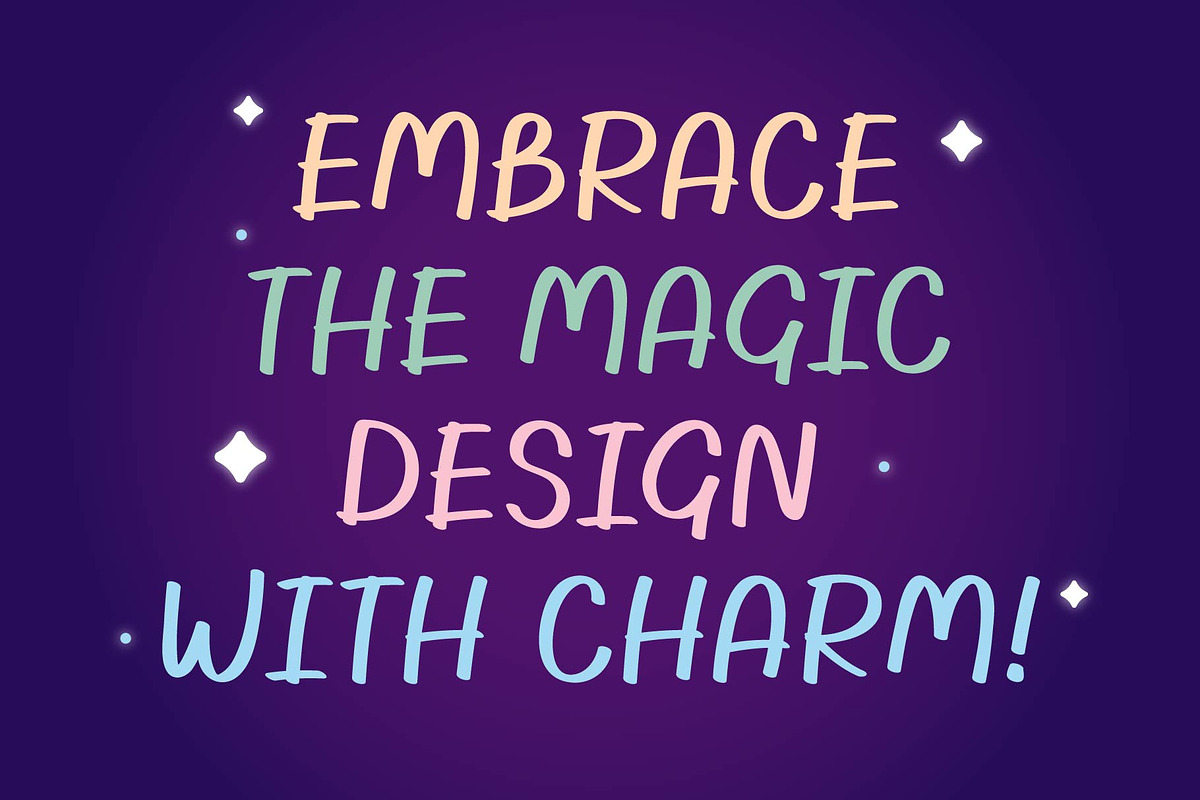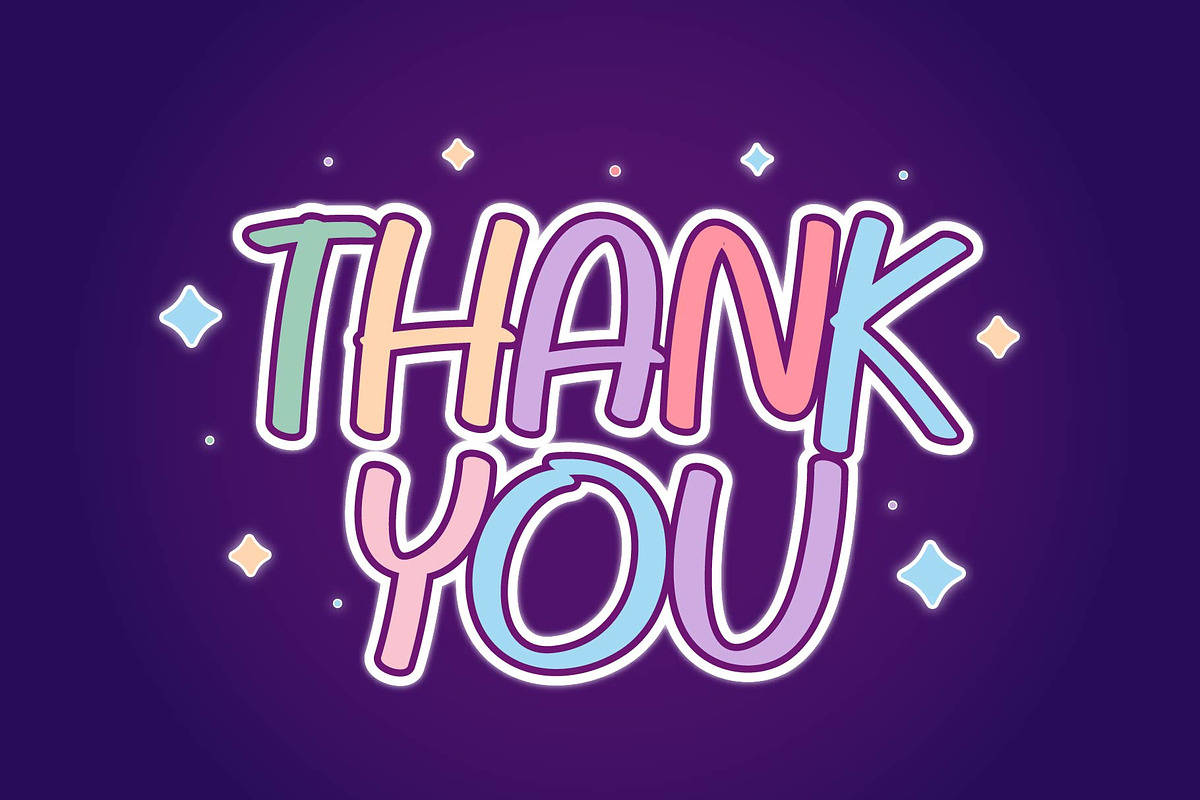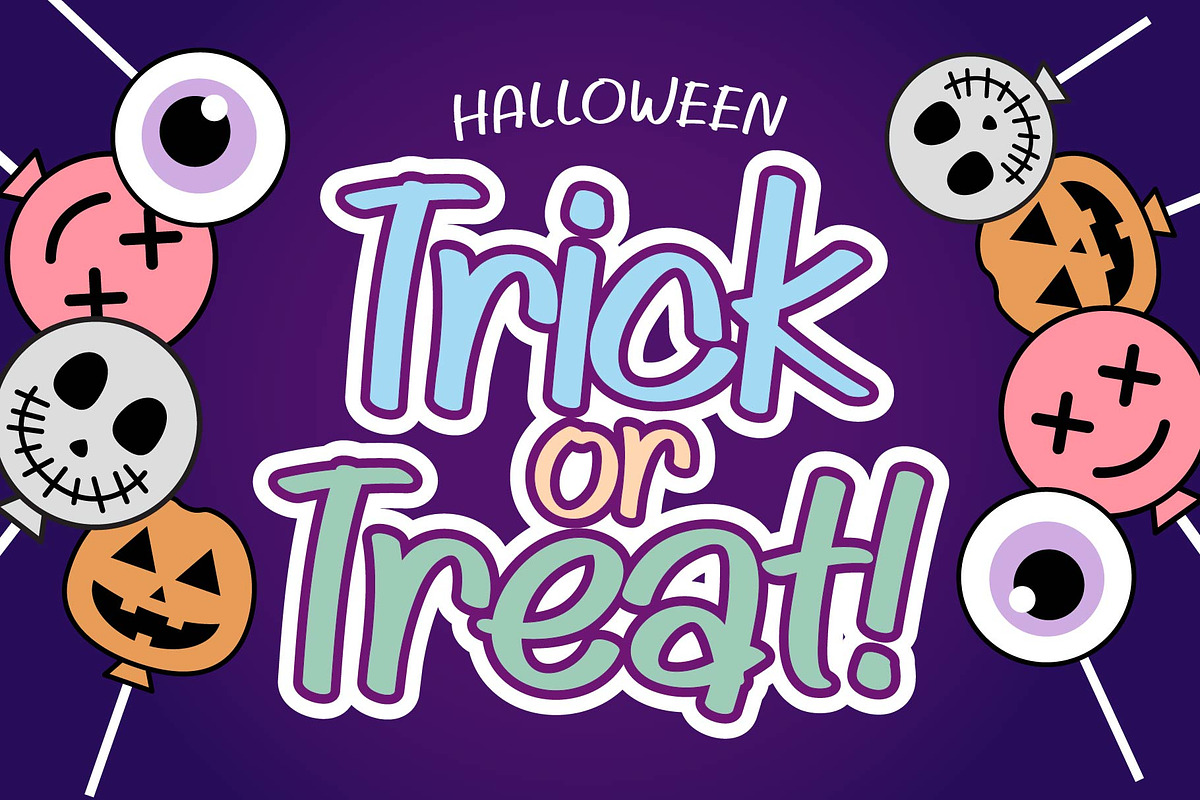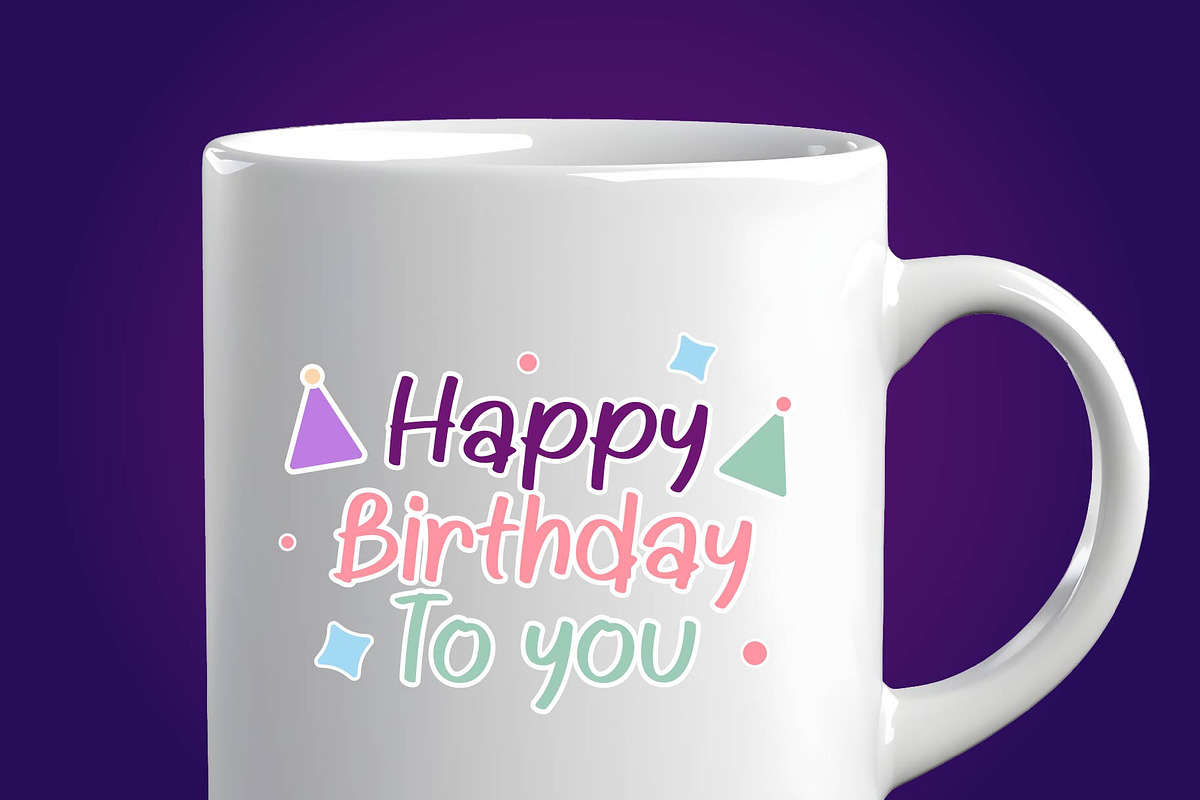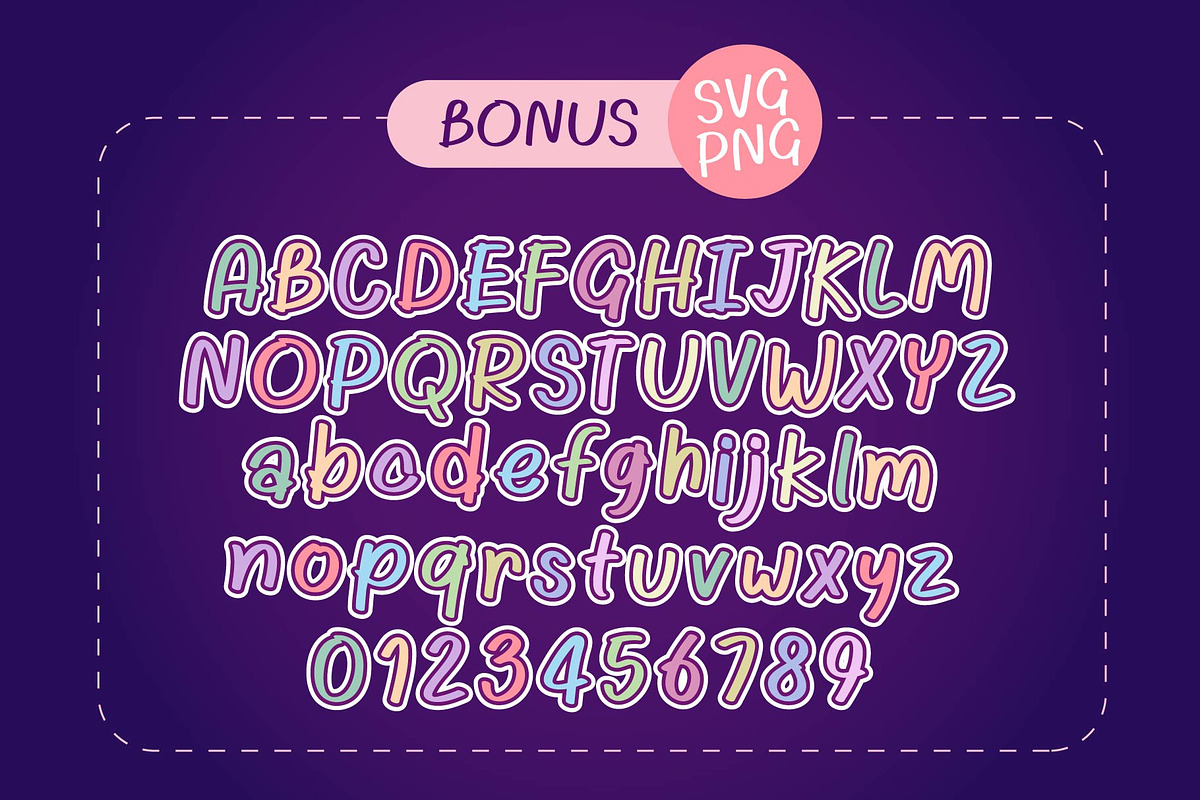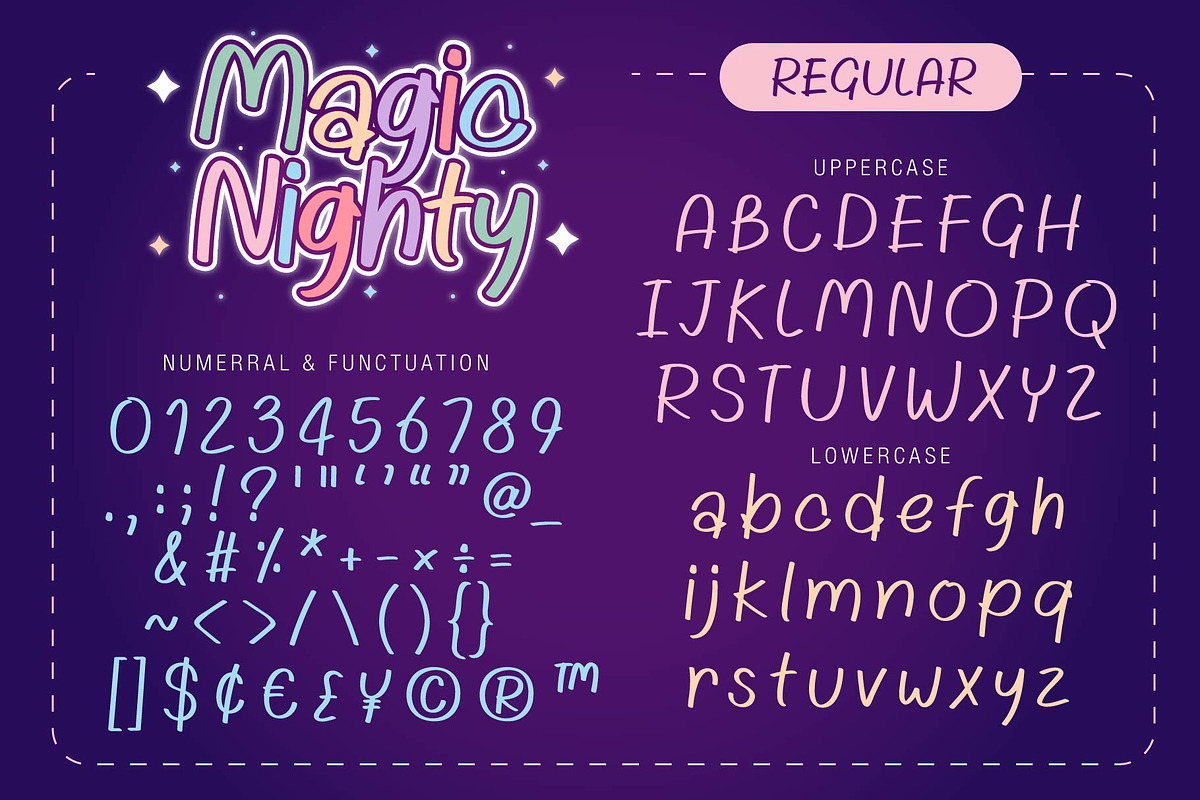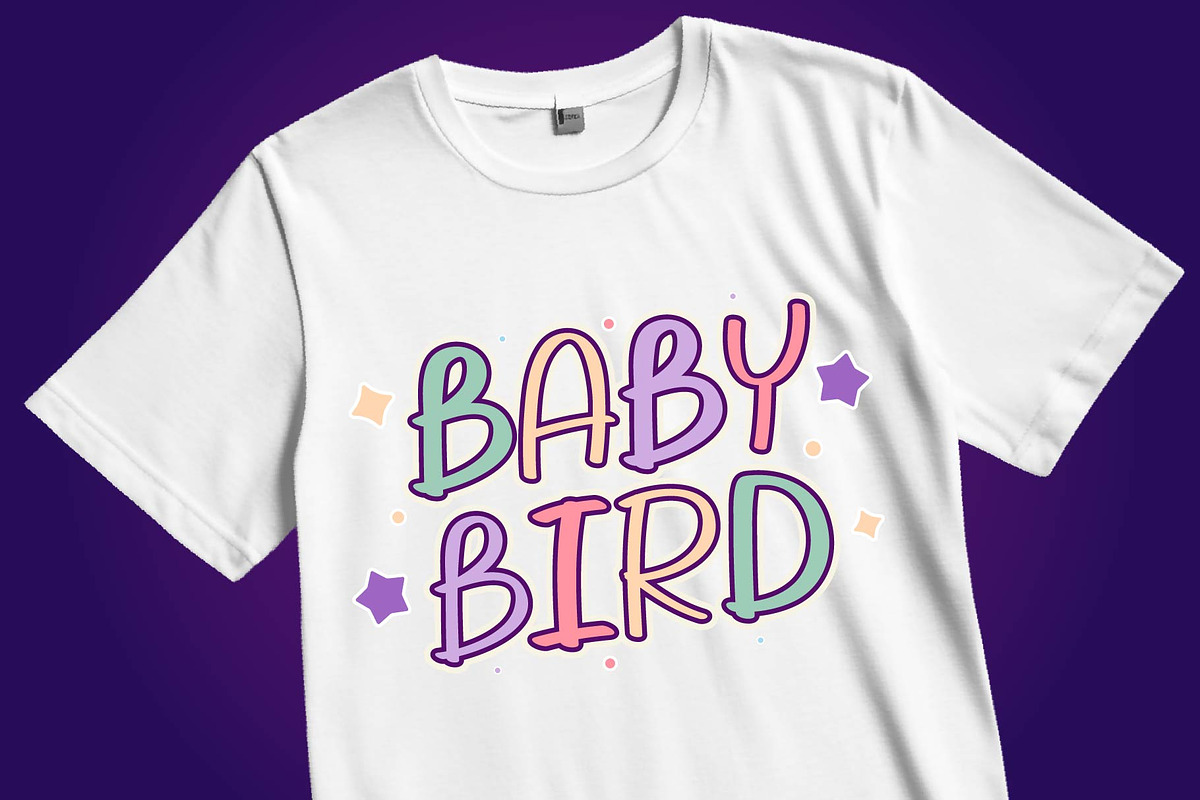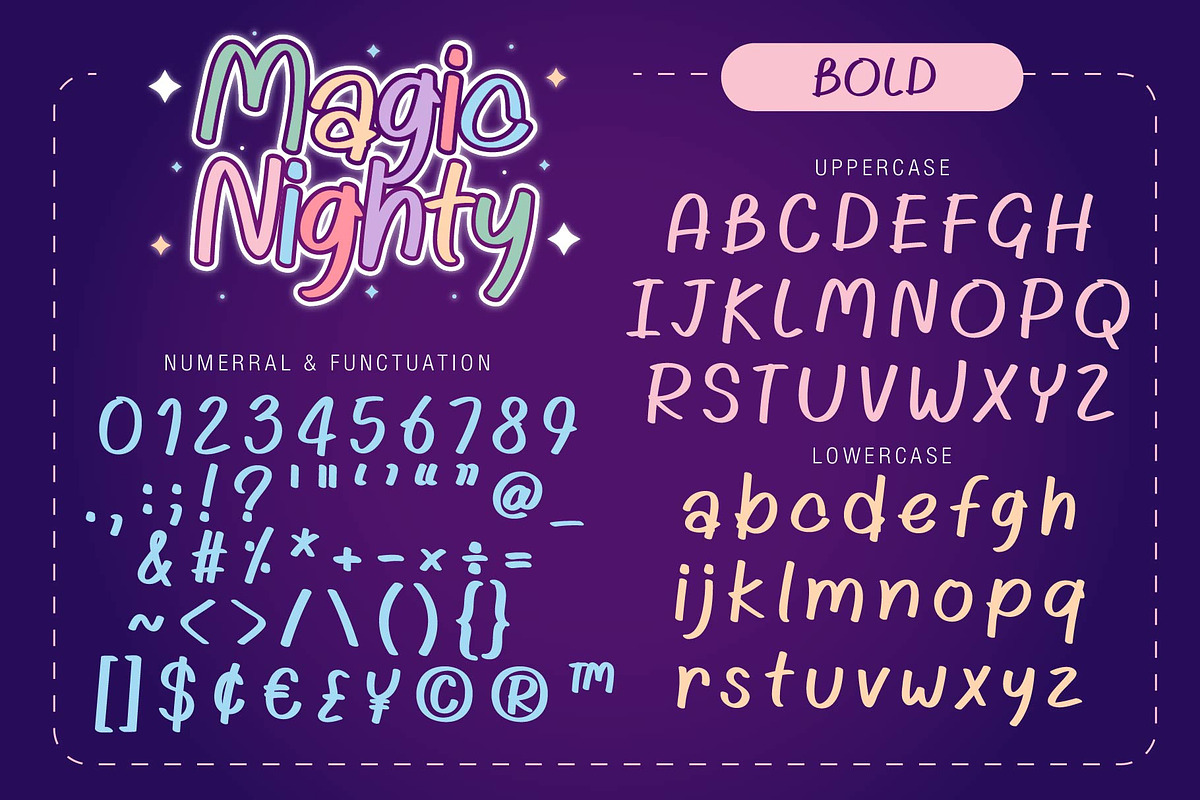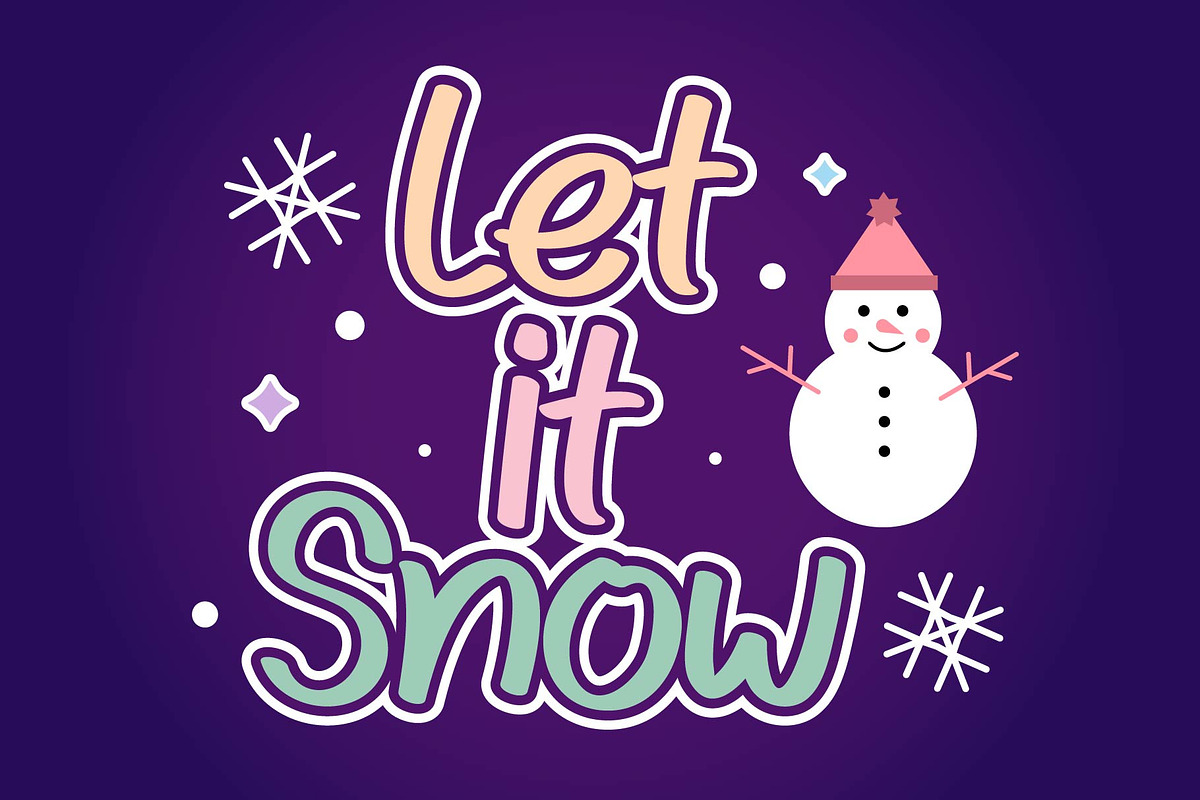
Magic Nighty Font
Magic Nighty font is a distinctive typeface that’s sure to transform your designs. Breathe fresh life into T-shirts, mugs, and a myriad of other creative pursuits with this uniquely versatile font. Its magical and nighttime-inspired aesthetics make it the perfect selection to bring a personalized touch to any project you undertake. Expect the Magic Nighty font to elevate your design game with its charismatic appeal and captivating allure. Make every creation an unforgettable one by incorporating the Magic Nighty font into your design journey.